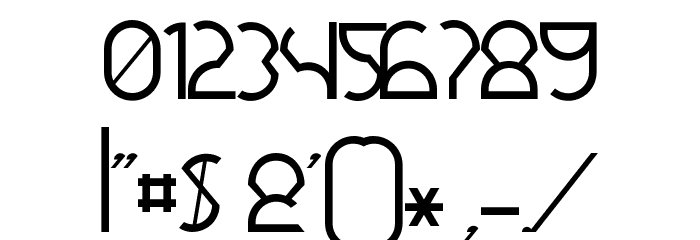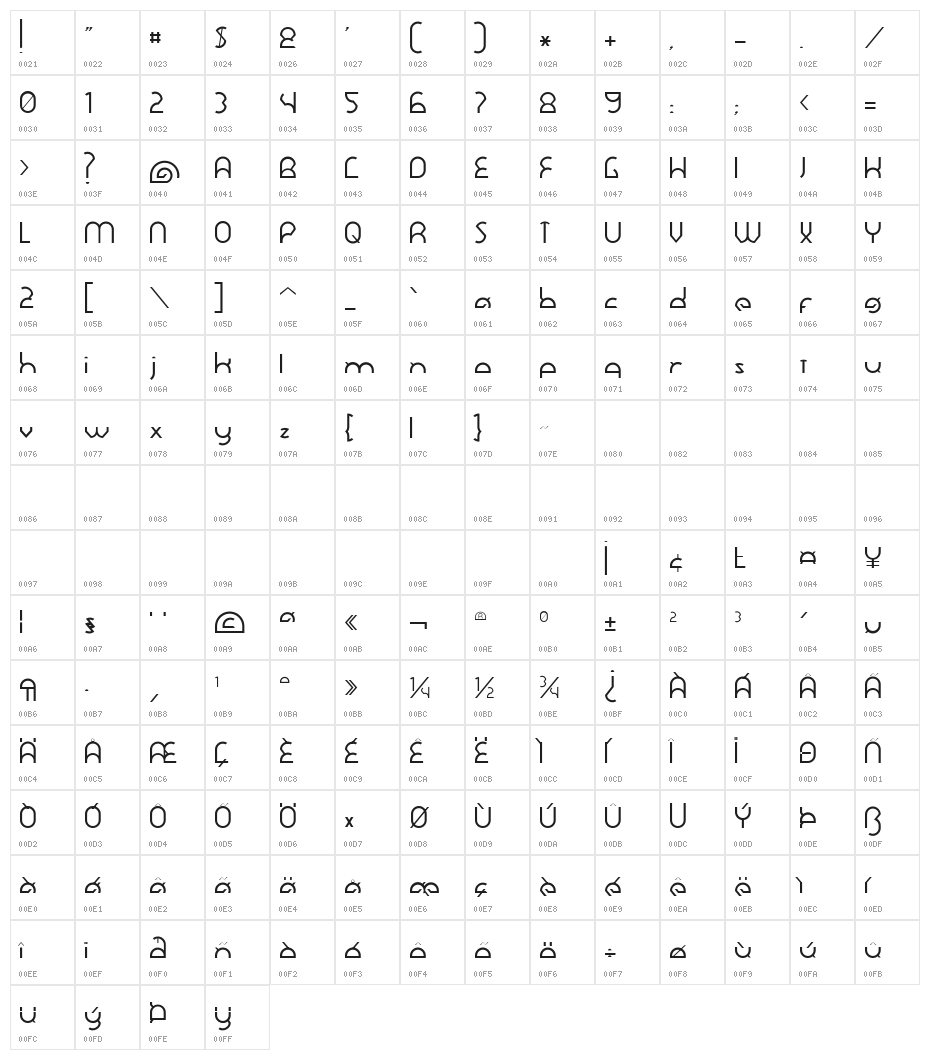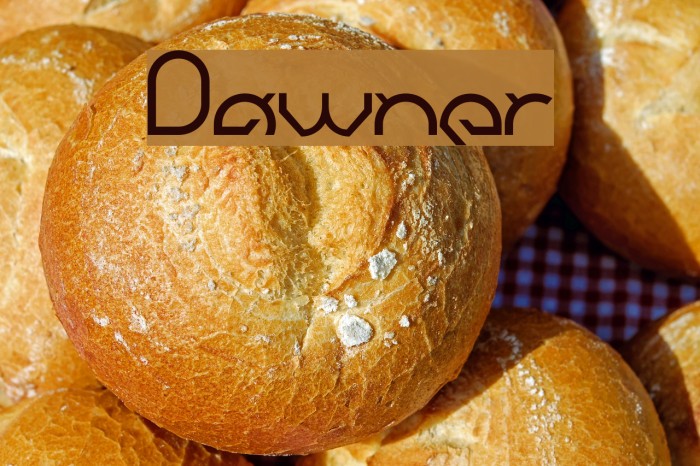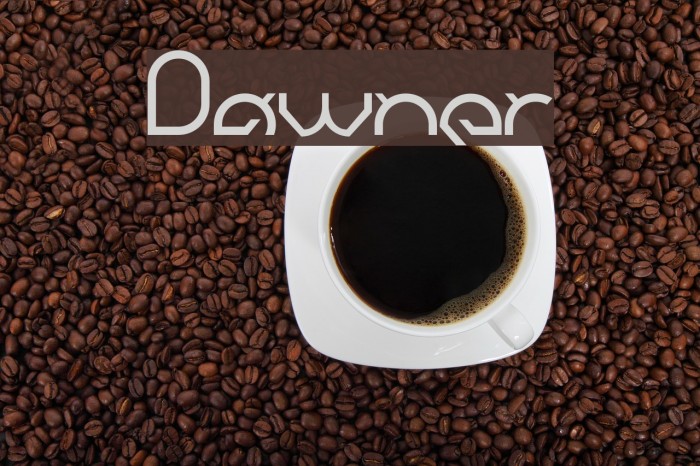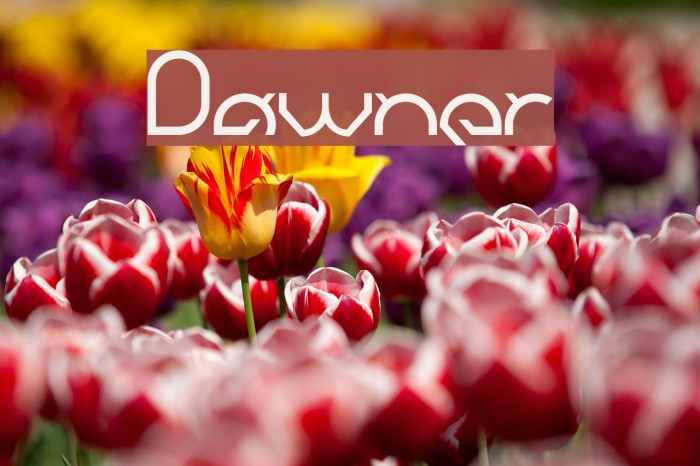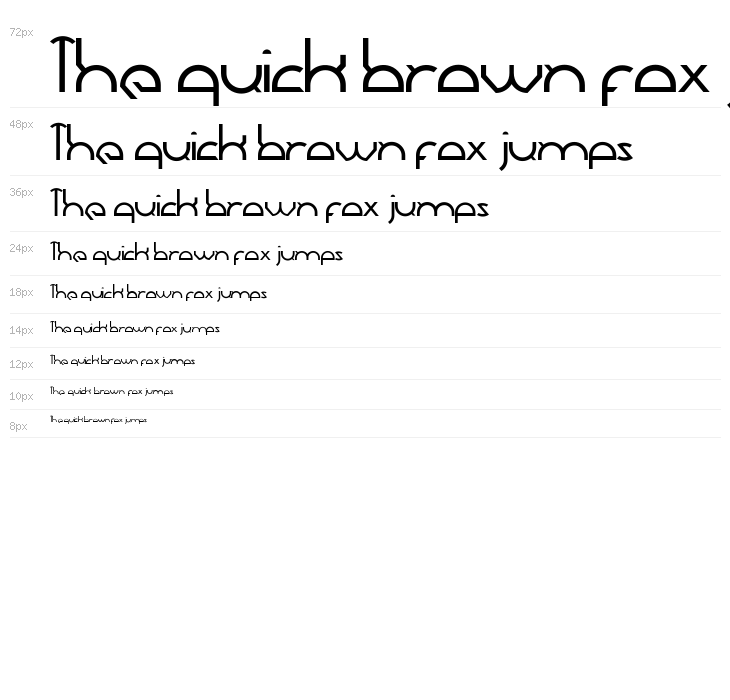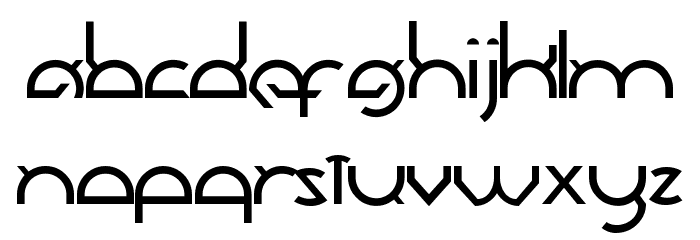
Dawner Font
Dawner Description
This font features a modern and geometric design with clean lines and a futuristic aesthetic. The characters are constructed with a consistent stroke width, giving it a uniform appearance. The uppercase letters are distinct with rounded edges and a minimalist style, while the lowercase letters maintain a similar geometric structure, offering a cohesive look. The numerals are equally stylized, matching the overall theme of the font. Special characters are designed to complement the alphabet, maintaining the same modern and sleek style. This font is ideal for projects that require a contemporary and innovative look.
| Use Case | Logos, Headlines, Digital Interfaces |
| Proposed Projects | Ideal for tech branding, modern advertising, futuristic designs, and digital interfaces. |